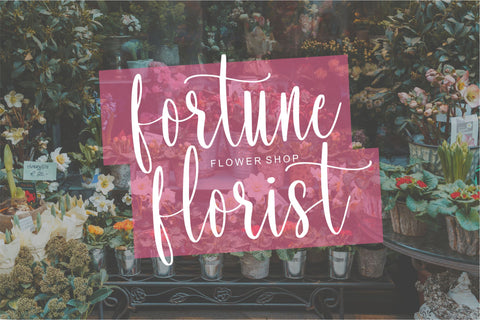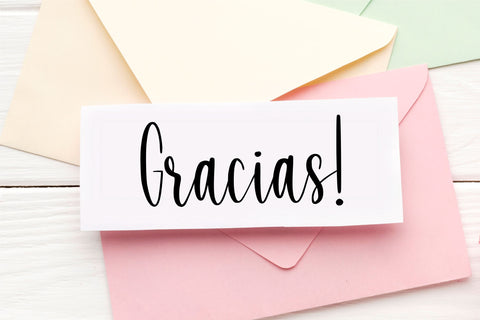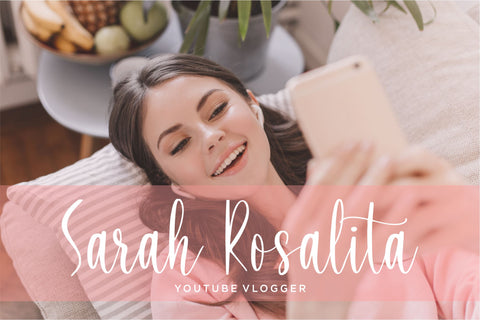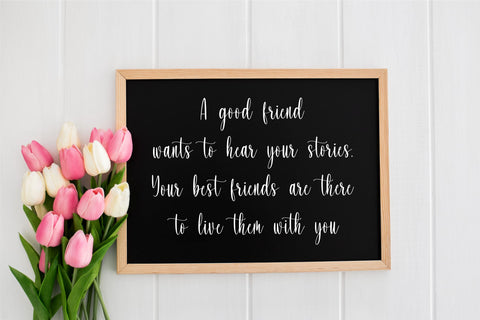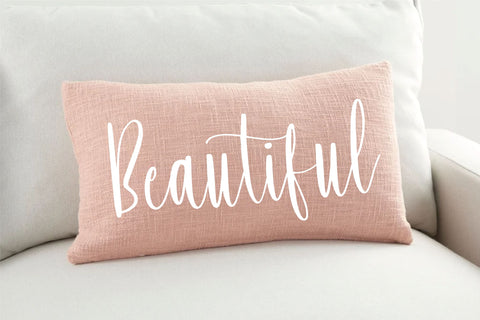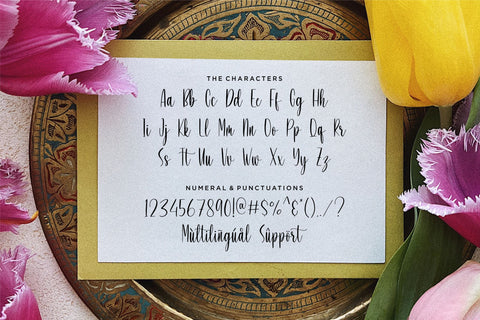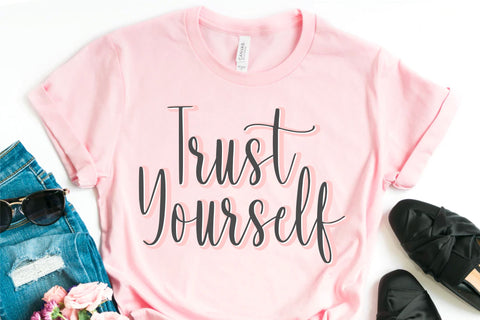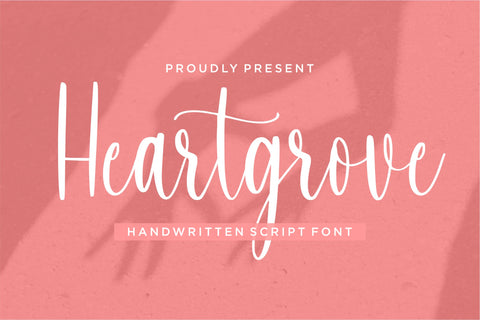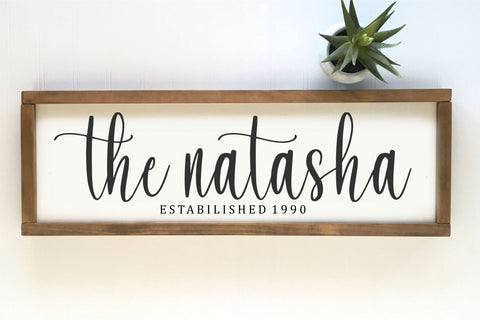
Heartgrove
Proudly Present, Heartgrove
Heartgrove is a Handwritten Script Font
Heartgrove is perfect for product packaging, branding project, megazine, social media, wedding, or just used to express words above the background.